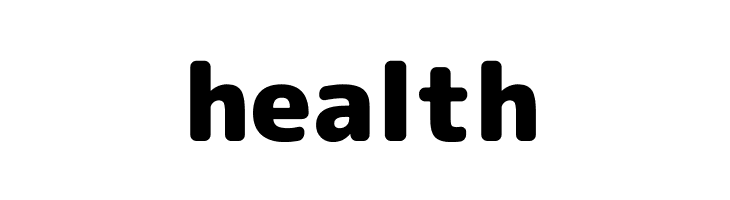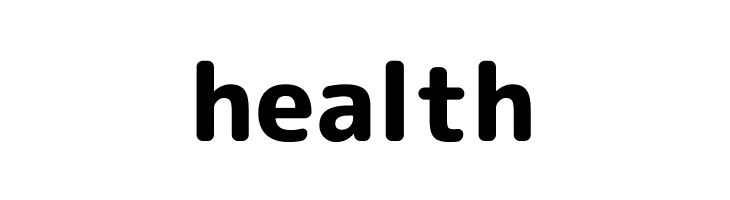
A bold, hand-drawn font with a rough, textured style and dynamic character shapes.
A modern, rounded font with a friendly and approachable design.
A bold, rounded font with smooth curves and a modern, friendly style.
A modern, bold, rounded typeface with a friendly and clear appearance.
A modern, thin, and rounded font with a clean and minimalist design.
A modern, rounded sans-serif font with a clean and approachable style.
A modern, rounded typeface with a clean and friendly appearance.
A modern, rounded font with a clean and approachable design.
A graceful and elegant script font with flowing cursive letterforms.
A playful, handwritten font with a whimsical and informal style.
A playful, bold font with rounded edges and a friendly appearance.
A playful, hand-drawn outline font with a whimsical and informal style.
A playful, bold handwritten font with rounded strokes and a casual feel.
A bold, playful font with rounded edges and a whimsical style.
A bold, decorative font with heart-shaped cutouts and playful, dynamic characters.
A graceful and fluid script font with elegant cursive lines.
A flowing, elegant cursive font with a modern handwritten style.
A modern, geometric font with rounded edges and balanced proportions.
An elegant script font with fluid, connected strokes and a sophisticated style.
A graceful script font with elegant, flowing cursive letterforms.
A dynamic handwritten font with fluid, slightly irregular strokes and a playful vibe.
An elegant script font with flowing, cursive letters and intricate swashes.
An elegant script font with flowing, ornate cursive letters.
A lively, flowing script font with a casual, handwritten style.
A playful, rounded font with smooth curves and a friendly appearance.
A jagged, edgy font with irregular, sharp strokes resembling torn paper.
A bold, flowing script font with elegant curves and modern sophistication.
A bold, energetic script font with a hand-drawn, dynamic style.
A futuristic, geometric font with uniform stroke thickness and angular letterforms.
A bold and dynamic script font with expressive, flowing letterforms.